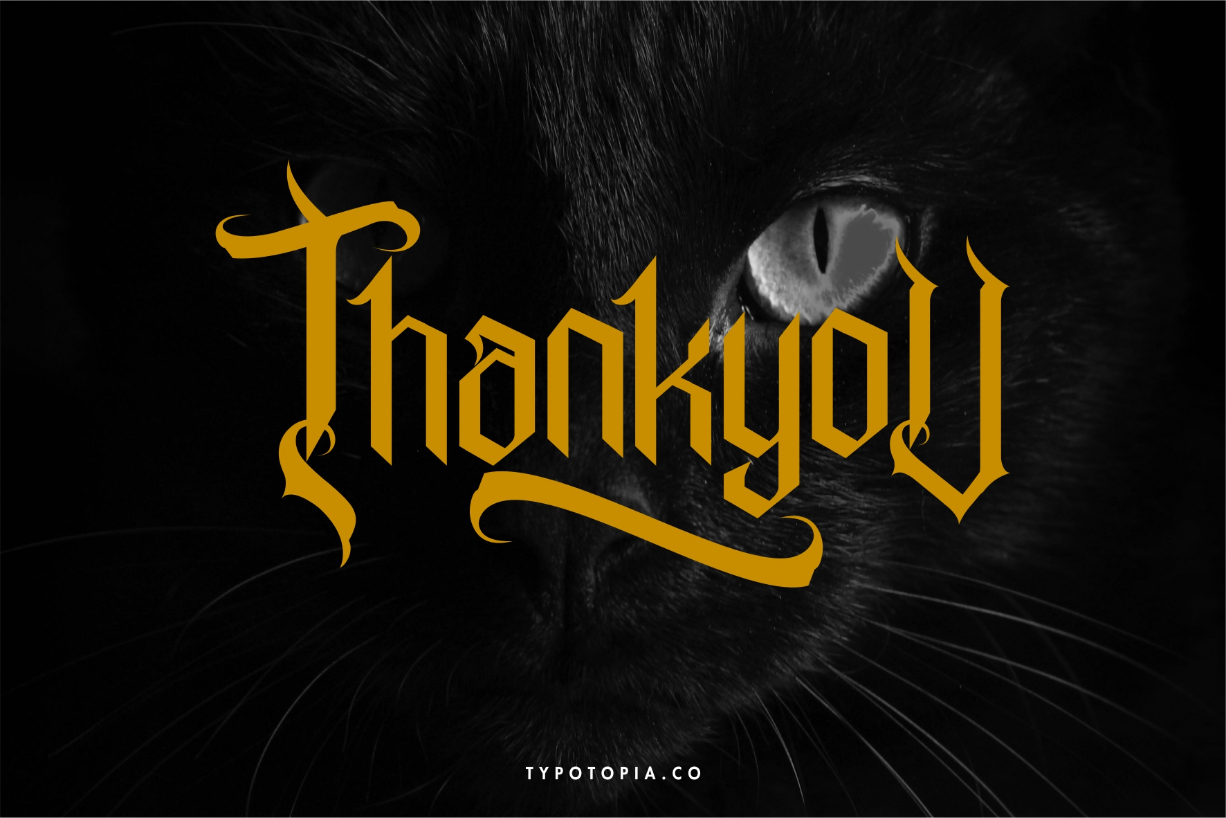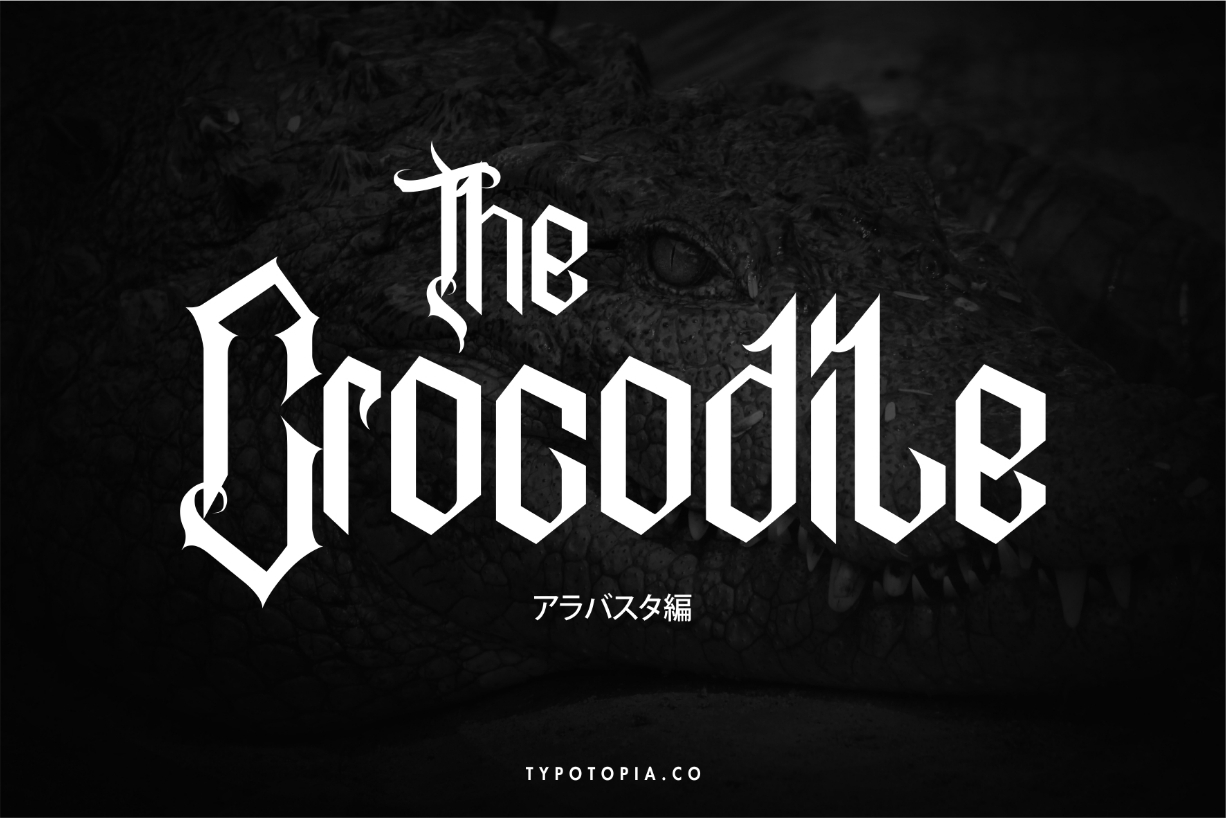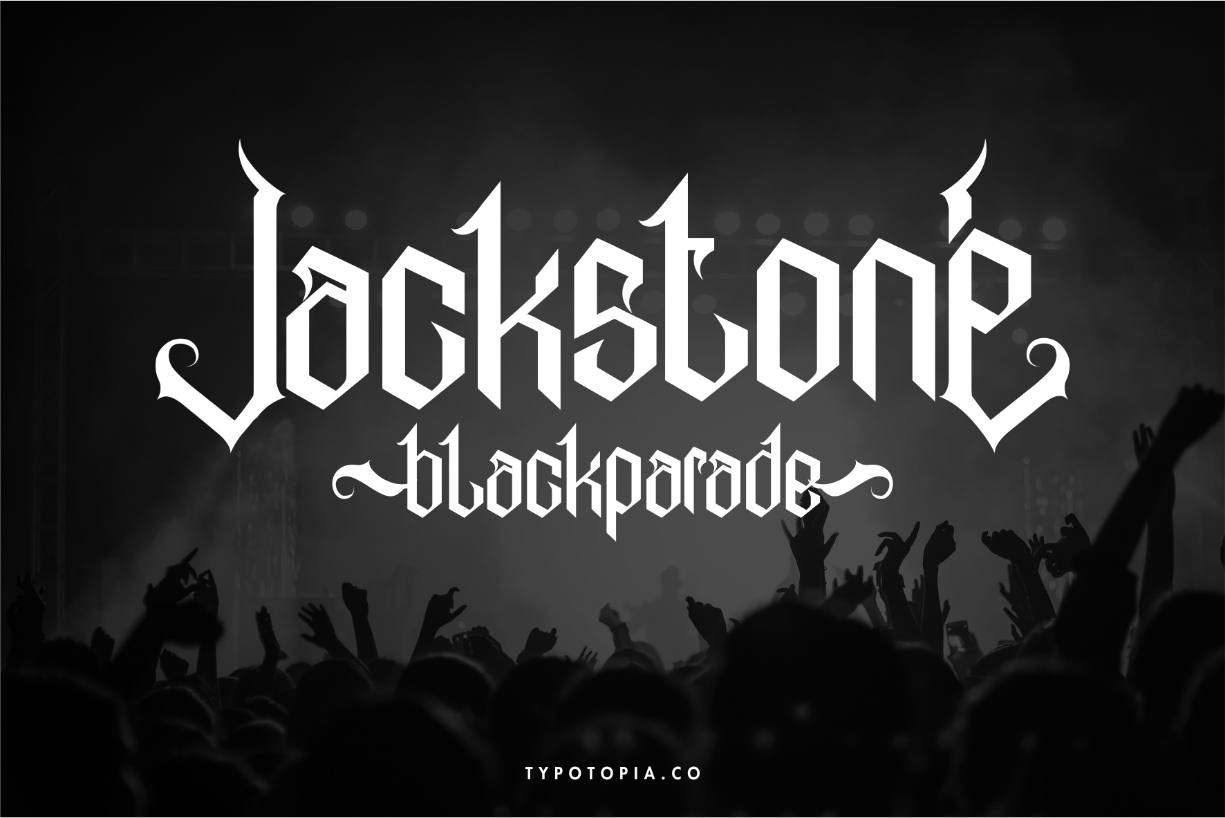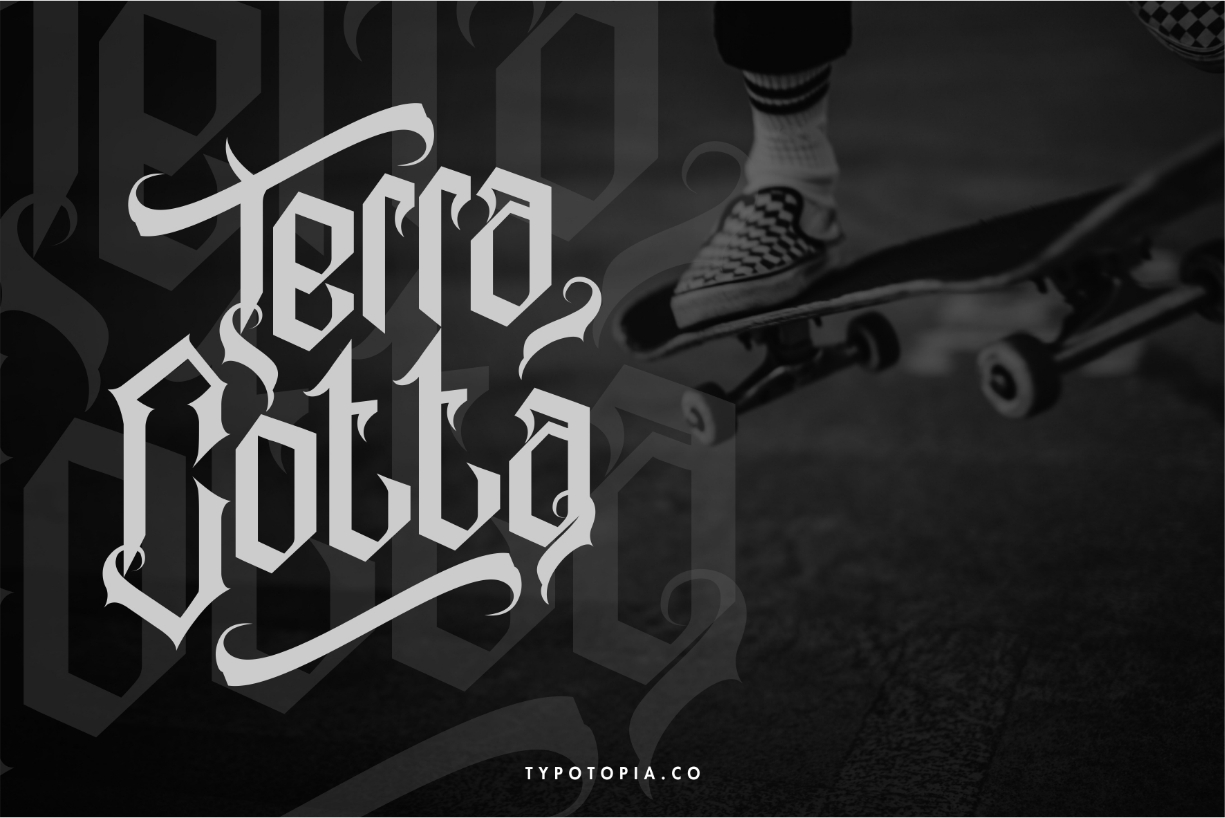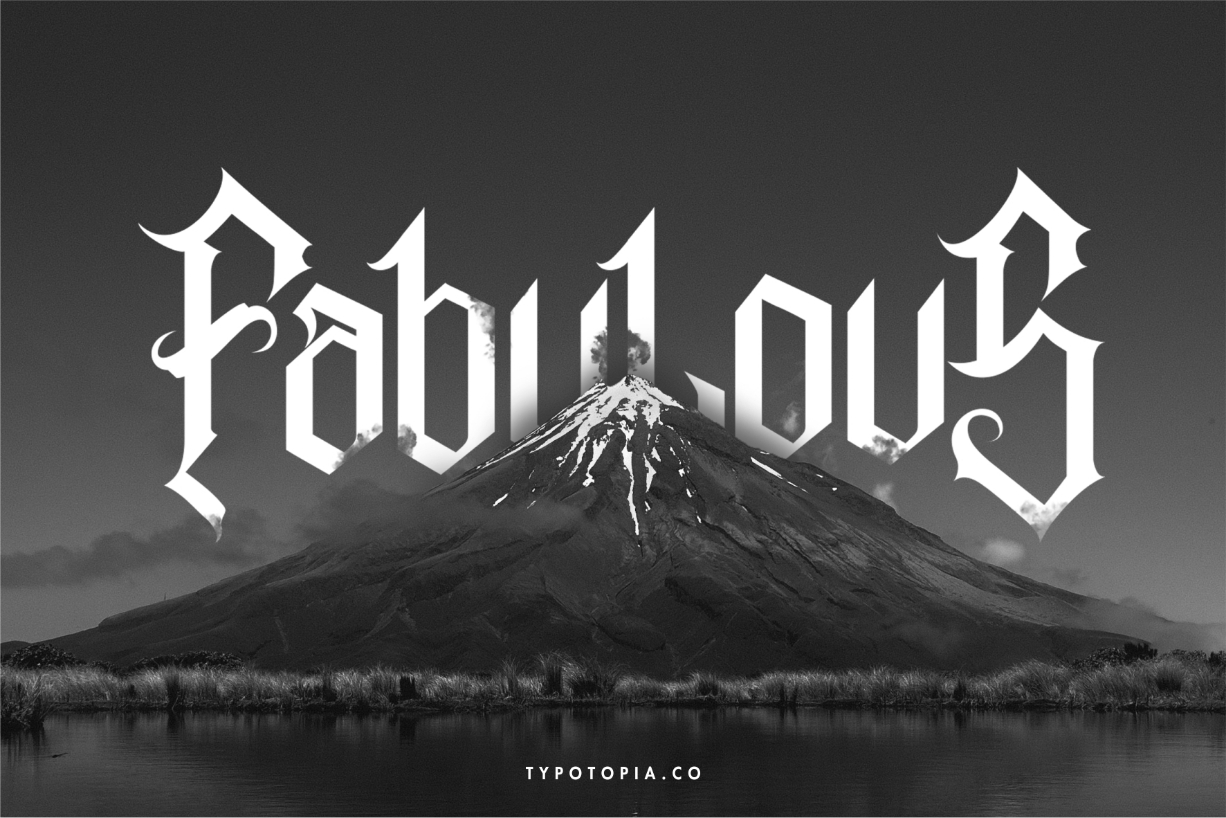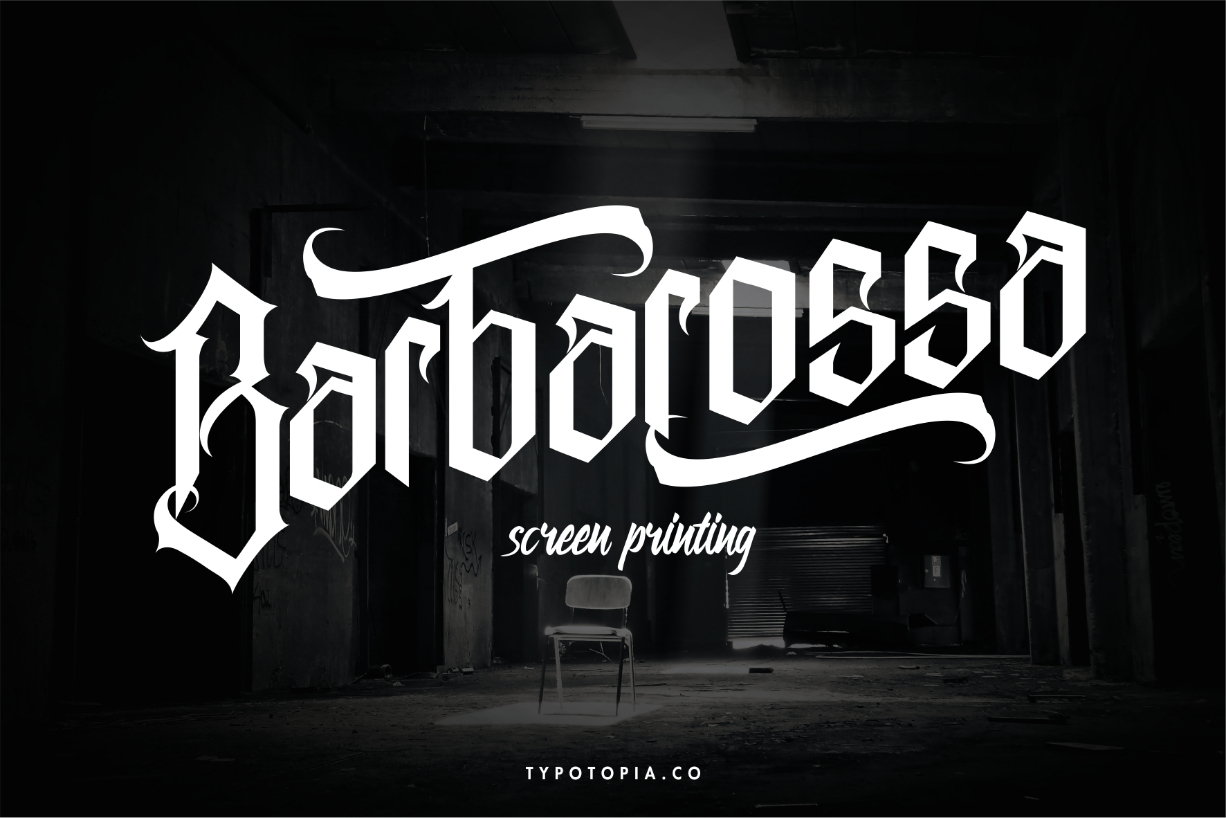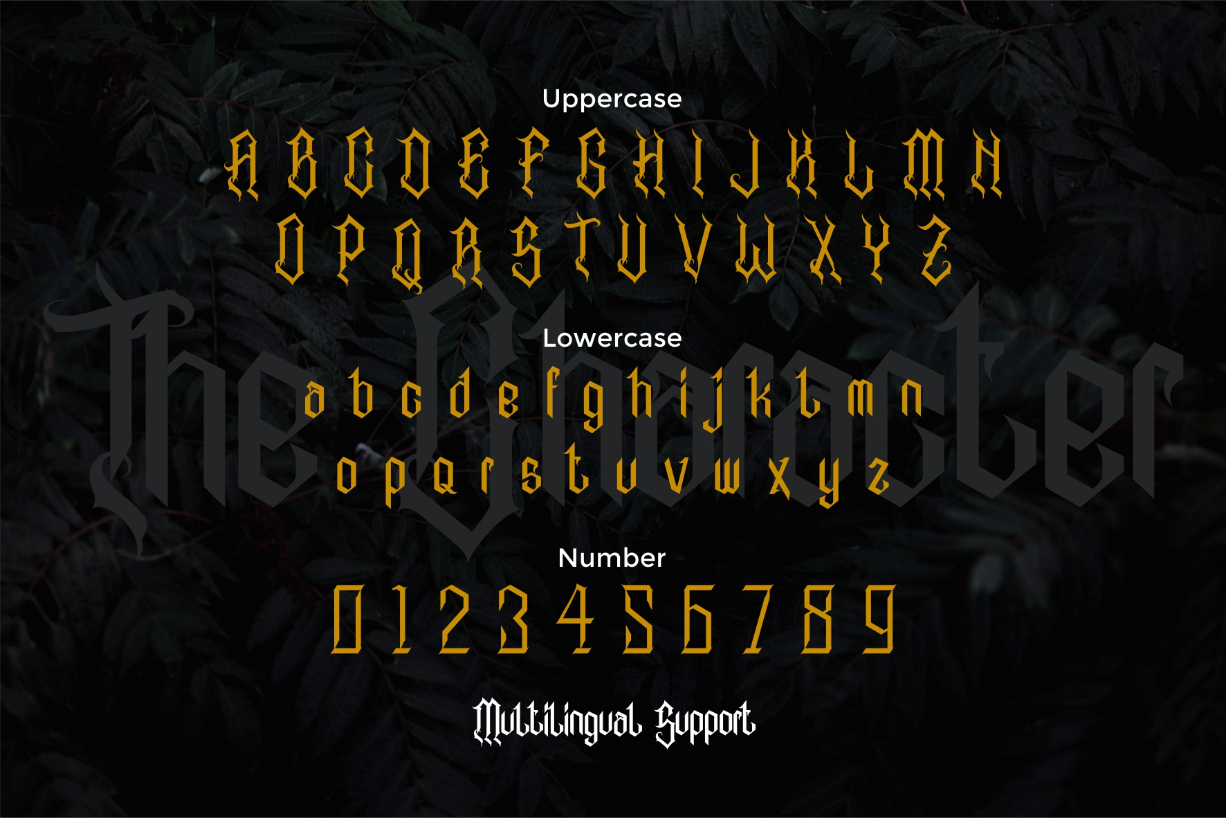
Alabasta Font
About Alabasta Font
Alabasta is an authentic blackletter font, featuring an incredibly vintage feel. Add this font to your creative ideas and notice how it makes them stand out!